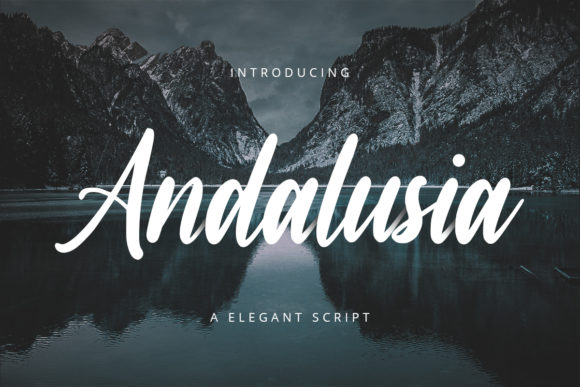
Embrace the vibrancy of Andalusia Font, a captivating script font family that radiates modern elegance. Step into a world of design possibilities with its bold strokes, meticulously crafted to leave a lasting impression on your audience. Andalusia is more than just a font; it's an artistic expression that elevates your designs to new heights of sophistication.
With its innate ability to captivate, Andalusia's timeless charm lends itself perfectly to logo design. Its clean, confident lines command attention, making your brand stand out from the crowd. Whether you're creating a logo for a fashion label, a creative agency, or a lifestyle brand, Andalusia effortlessly conveys a sense of luxury and distinction.
Unleash your creativity as you explore the boundless applications of Andalusia Font. Let your imagination soar as you craft stunning wedding invitations, eye-catching social media graphics, or captivating marketing materials. Its versatile nature allows you to effortlessly adapt to various design projects, ensuring consistent brilliance across all platforms.
Dive into the world of Andalusia and experience the transformative power of typography. Let your designs exude confidence, elegance, and a touch of playfulness. Embrace the beauty of Andalusia Font and watch your designs flourish with captivating charm.